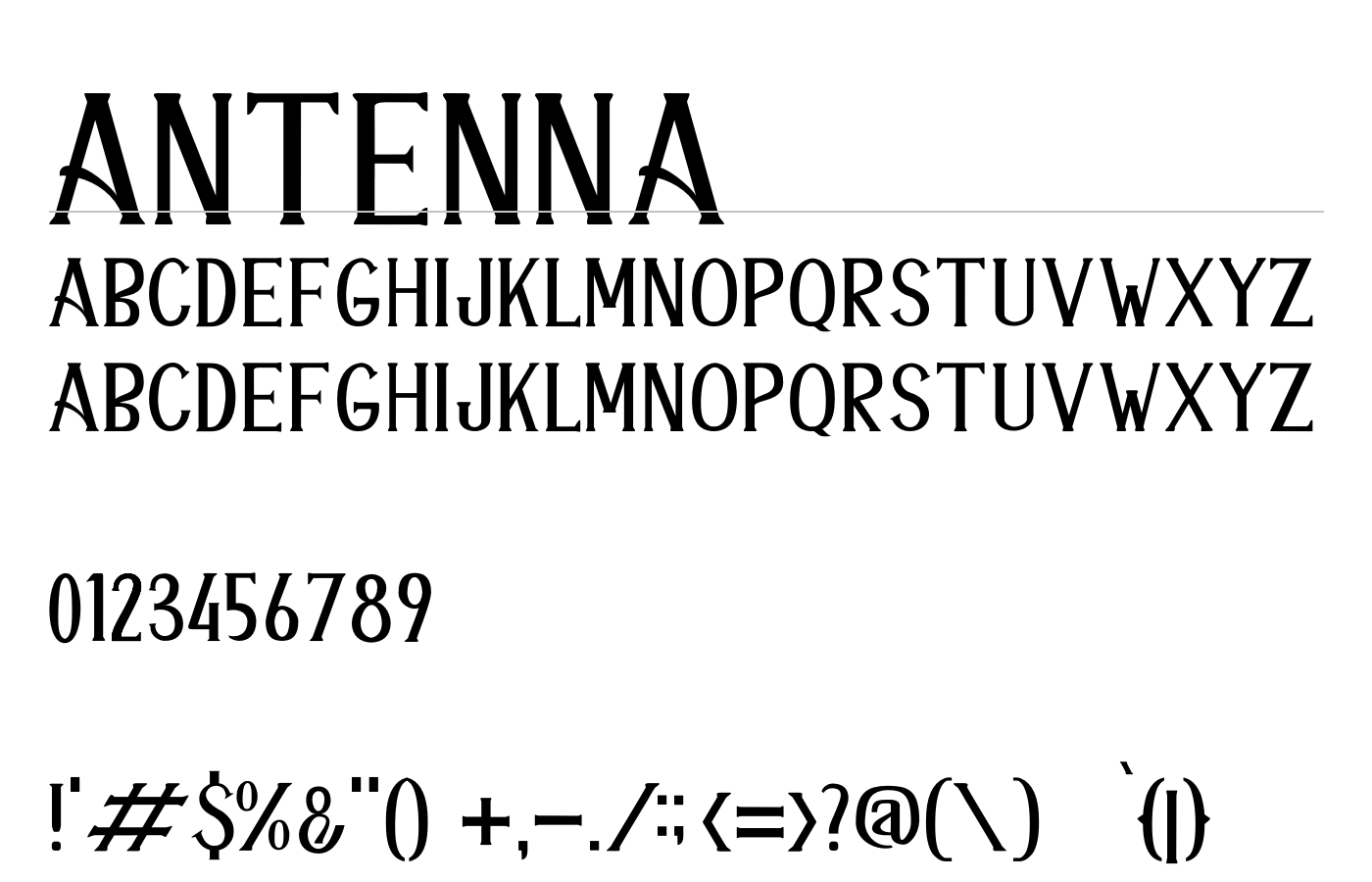
Antenna is a distinctive serif font with a quirky, vintage-inspired style featuring tall, narrow letterforms and playful, irregular curves that give it an artistic and slightly whimsical character. Its moderate contrast and sharp, bracketed serifs lend a sense of elegance, while its unique shapes, such as the unconventional "A" tails and stylized numerals, make it stand out in logos, headlines, and editorial design. This font works well for creative branding and projects seeking a blend of classic refinement with a modern twist.
ANTENNA Font